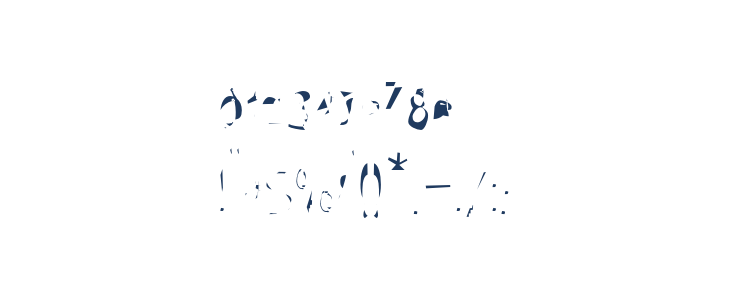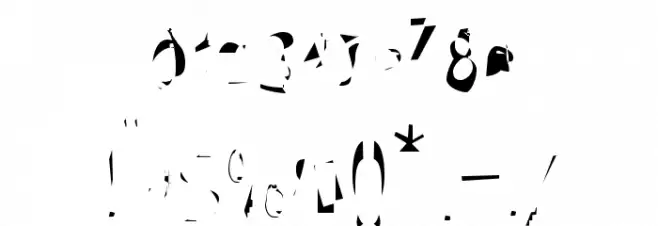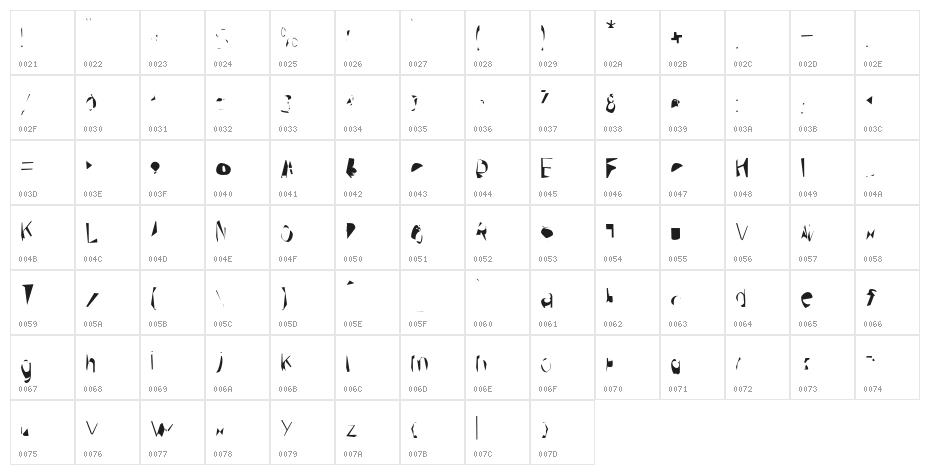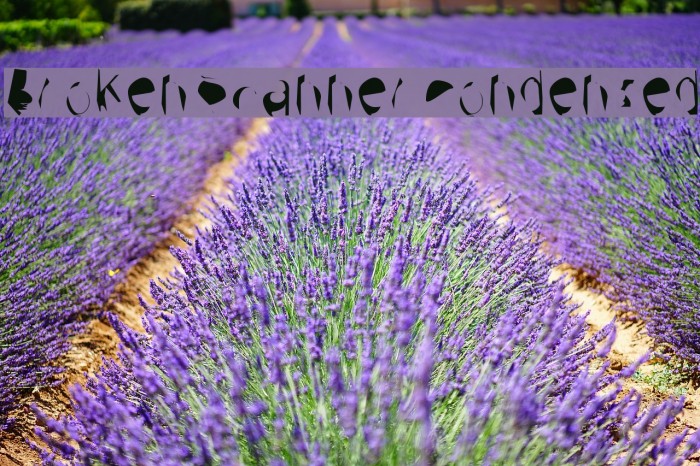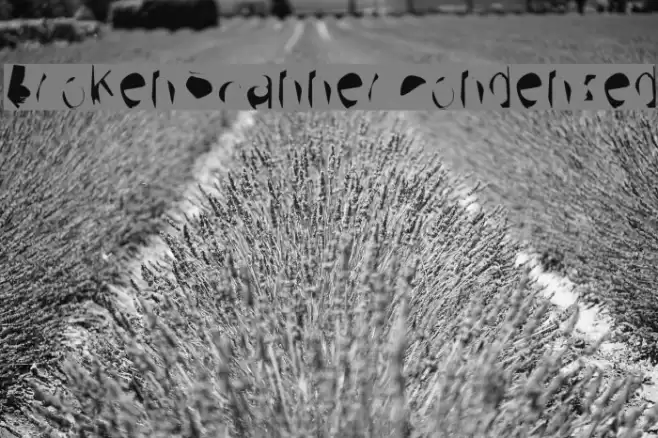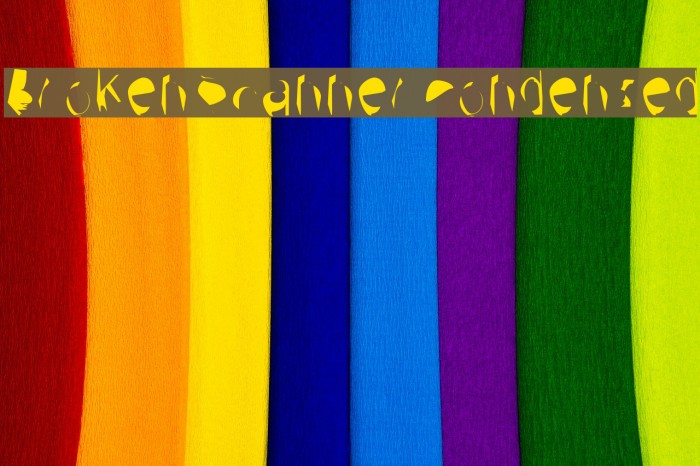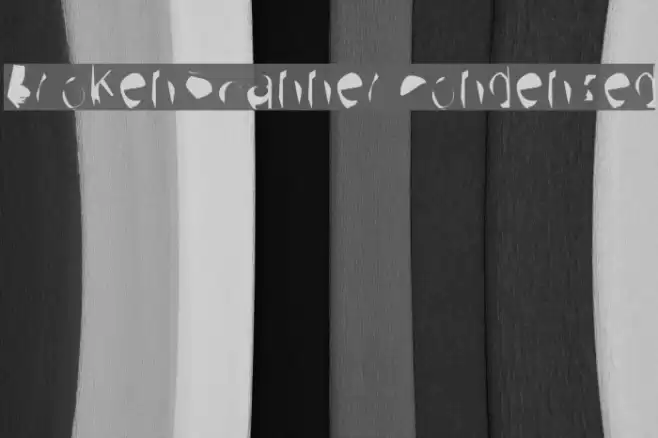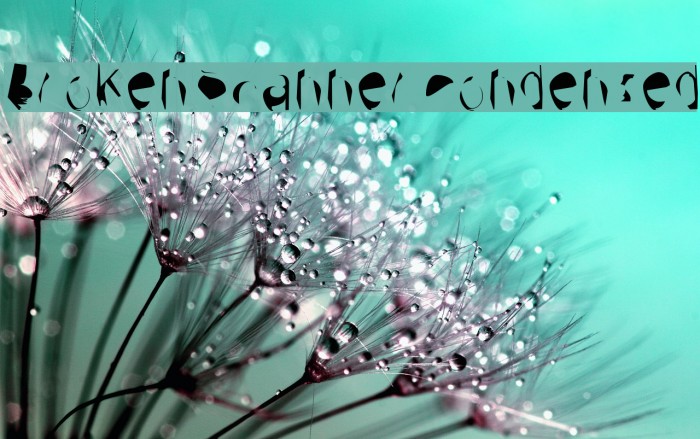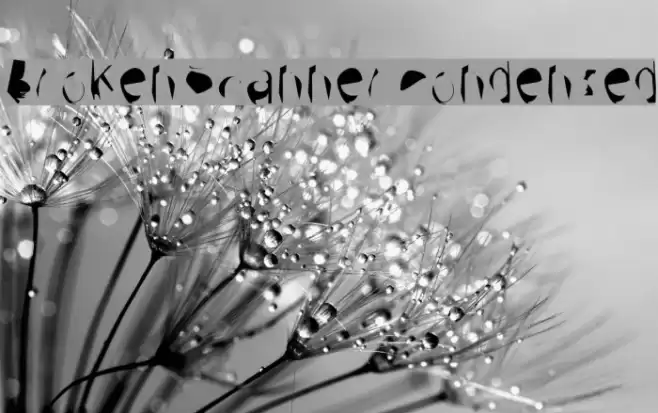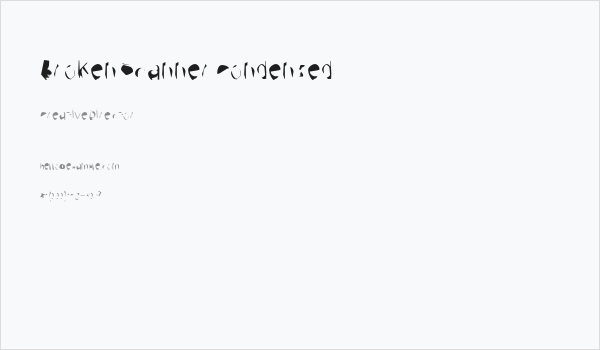
Broken Scanner Condensed Font
Broken Scanner Condensed Description
This font features a highly abstract and fragmented design, reminiscent of letters that have been distorted or broken. Each character appears as if it has been sliced or shattered, creating a unique and chaotic visual effect. The uppercase and lowercase letters maintain a consistent style, with sharp angles and irregular shapes dominating the design. The numbers and special characters follow the same fragmented aesthetic, making the entire set cohesive yet unconventional. This font's distinct appearance makes it stand out, offering a bold statement in any design project.
| Overall Style | Modern, Abstract |
| Use Case | Headlines, Logos, Artistic projects |
| Proposed Projects | Ideal for avant-garde posters, album covers, and experimental graphic design projects. |